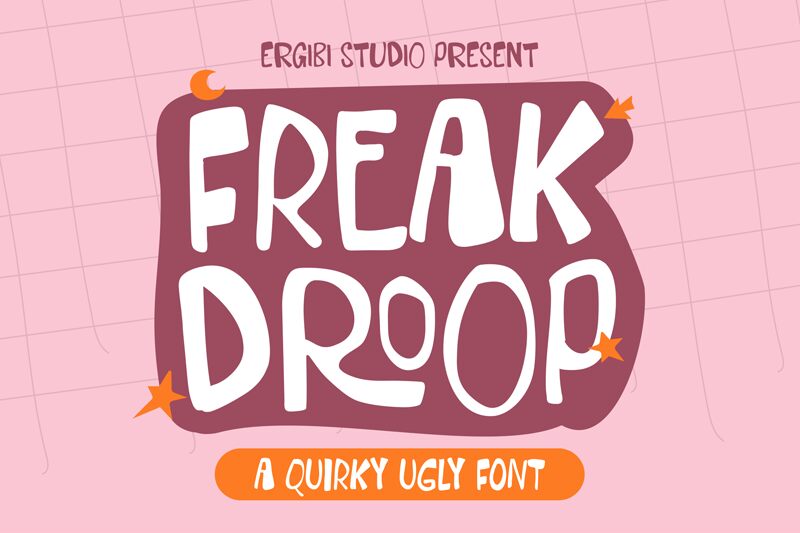
Freak Droop font by Riyadh Rahman is a free cartoon font with a playful and energetic appearance. Its unique and exaggerated style brings a whimsical charm to any project, making it stand out in the sea of regular designs. Play with its unusual, organic shapes to give your design project a subtle comic touch!
Freak Droop is a light-hearted, fun font that works particularly well in coloring books, comic books, cartoons, games, and movie titles, especially those for children. It will also work well in magazine titles and even YouTube thumbnails.